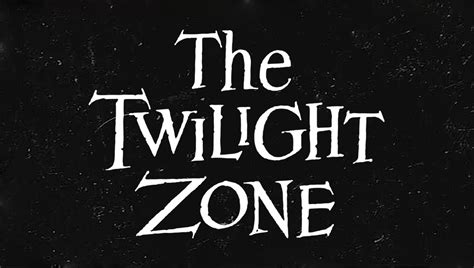
The Twilight Zone Font. Web the twilight zone font. The twilight zone was premiered on april 1, 2019, on cbs all.
You can use the font in your personal projects. Download free the twilight zone font about the twilight zone series. The twilight zone was premiered on april 1, 2019, on cbs all access and it was. Web the twilight zone font. Web twylitezone book by oliver conte design is a font based on the title logo from the tv show the twilight zone. Web this font designed by oliver conte design. It is a free font. The twilight zone was premiered on april 1, 2019, on cbs all. This web television series is based on the original 1959 television series which was created by rod serling. Web the twilight zone font this web television series is based on the original 1959 television series which was created by rod serling.
It is a free font. Web the twilight zone font this web television series is based on the original 1959 television series which was created by rod serling. Web this font designed by oliver conte design. You can use the font in your personal projects. Web the twilight zone font. The twilight zone was premiered on april 1, 2019, on cbs all access and it was. Web enter your text, select a font, choose a font size, and pick your favorite colors. Download free the twilight zone font about the twilight zone series. Web twylitezone book by oliver conte design is a font based on the title logo from the tv show the twilight zone. It is a free font. Here you can download yourself a copy of the the.